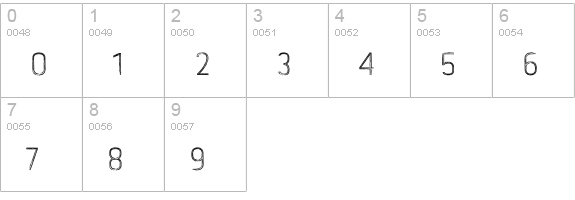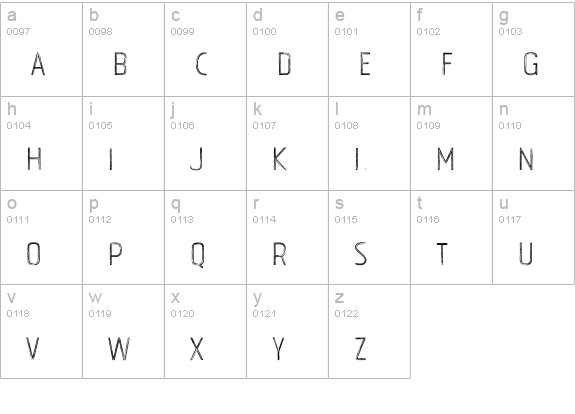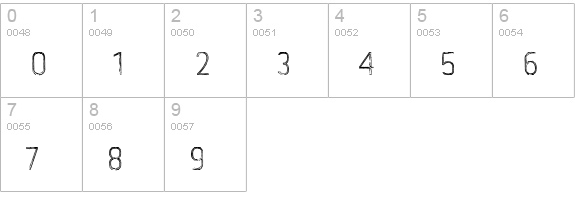
Tolyer X Wood Font Details
Tolyer X Wood font is a stunning display typeface that exudes elegance and sophistication. With its unique combination of sharp edges and smooth curves, this font is perfect for making a bold statement in your projects. Its modern yet timeless design makes it versatile for a wide range of applications, from branding to editorial design. What sets Tolyer X Wood font apart is its attention to detail and craftsmanship. Each letter is meticulously crafted to ensure a seamless and cohesive look across your text. The font's clean lines and balanced spacing make it easy to read and eye-catching at the same time. Best of all, Tolyer X Wood font is completely free to download at FontsMarket.com. Whether you're a designer looking to add a touch of sophistication to your work or a business owner in need of a standout logo, this font is sure to impress. Don't miss out on this amazing opportunity to elevate your designs with Tolyer X Wood font.